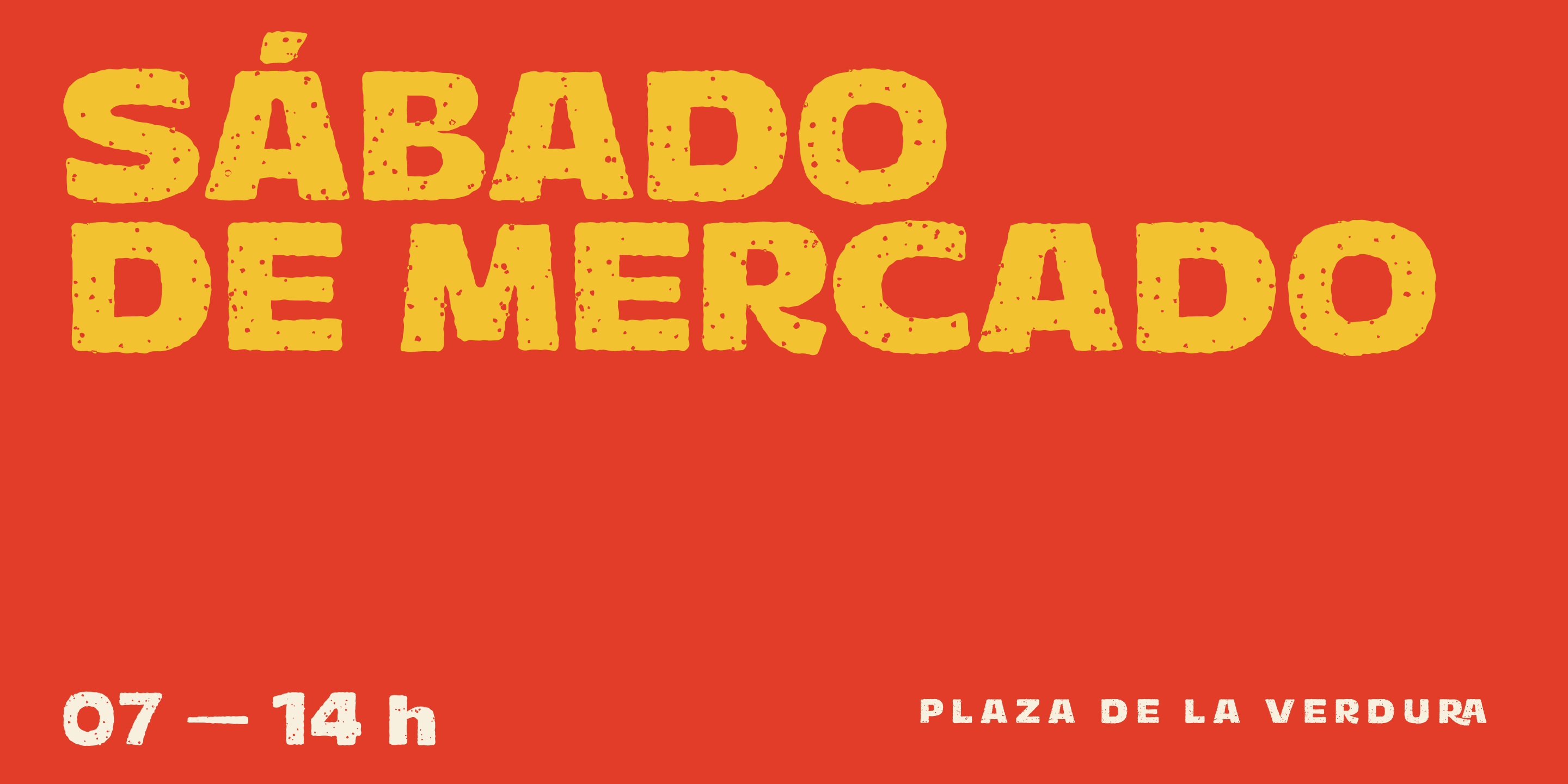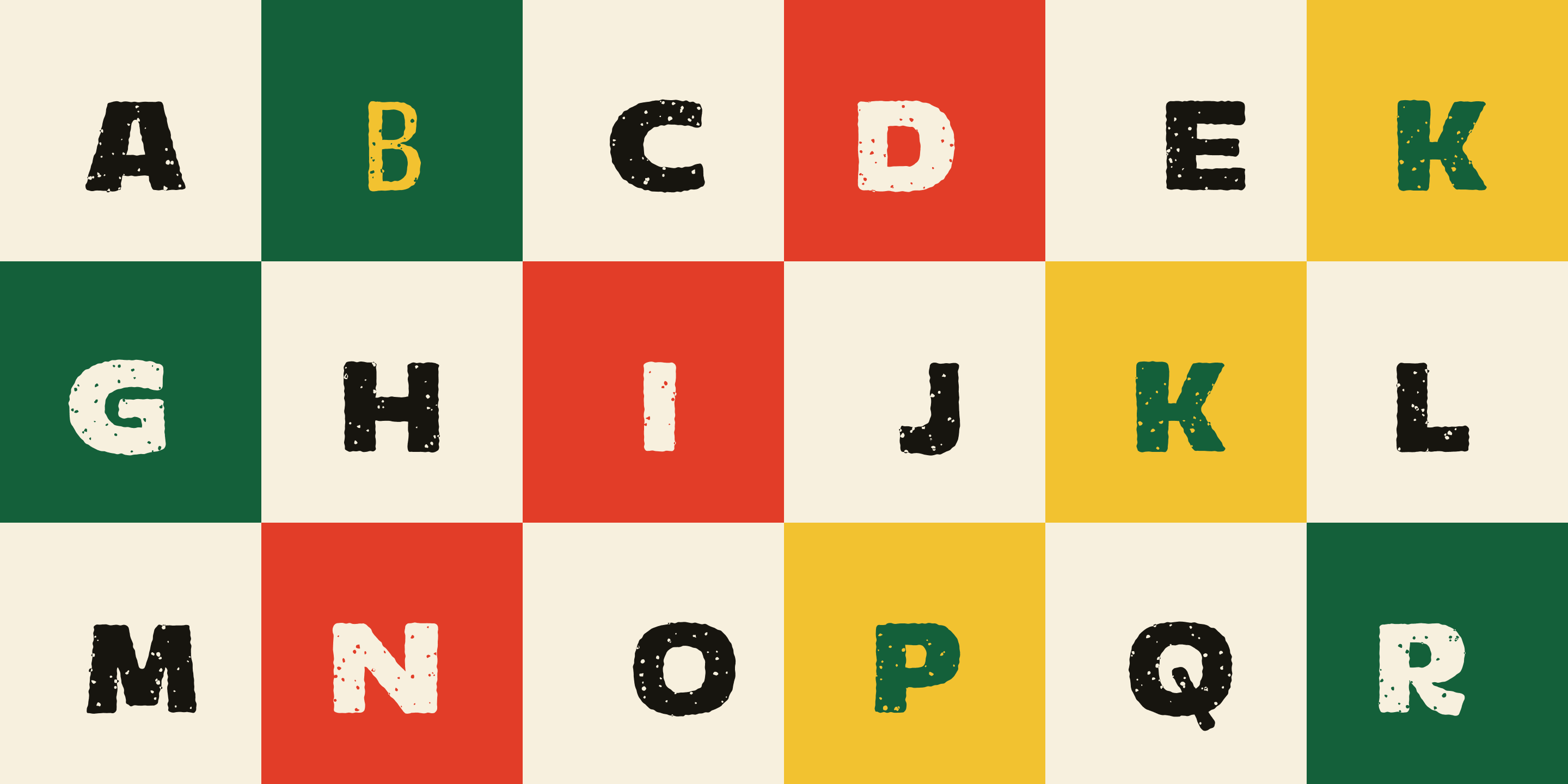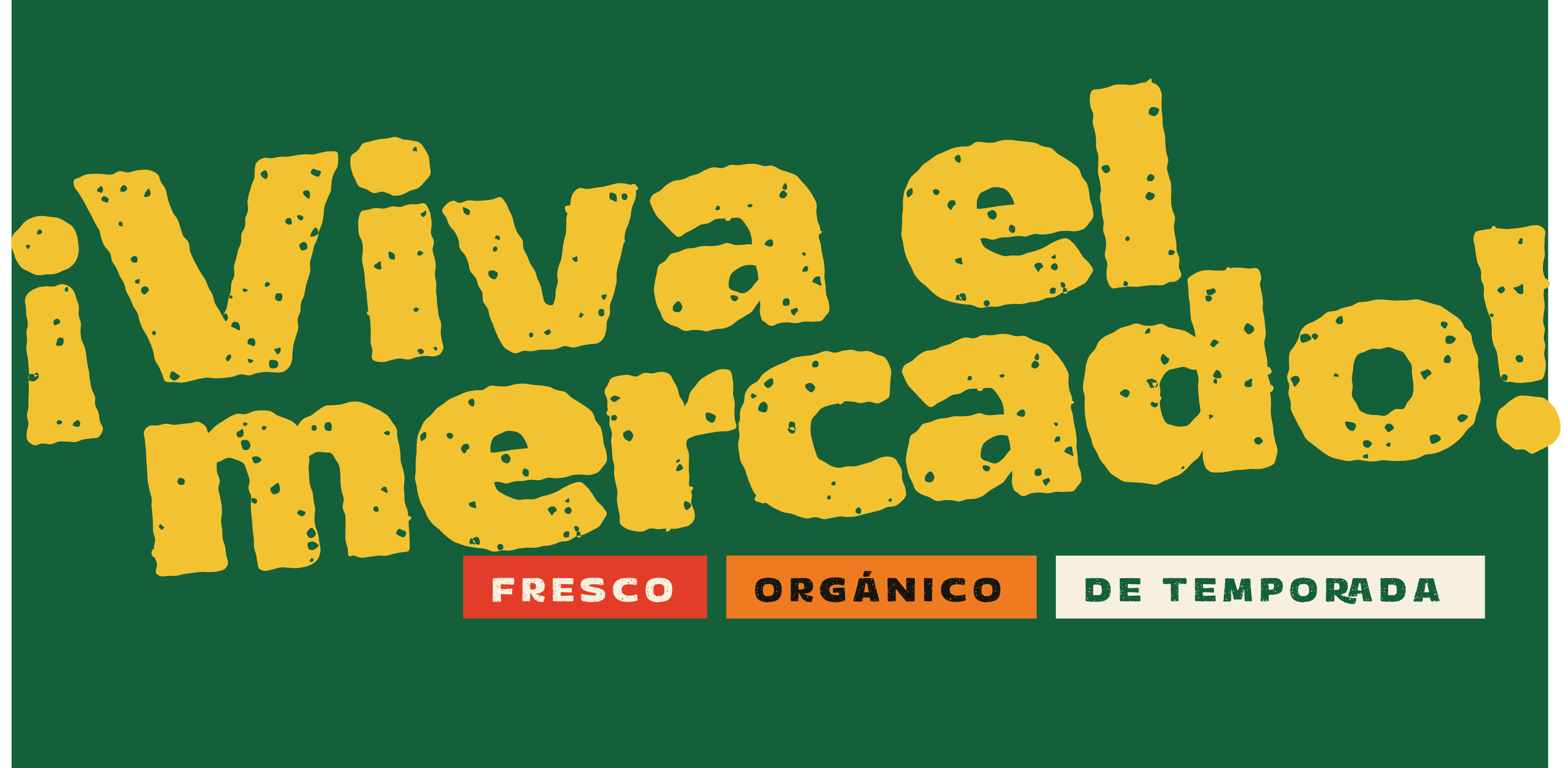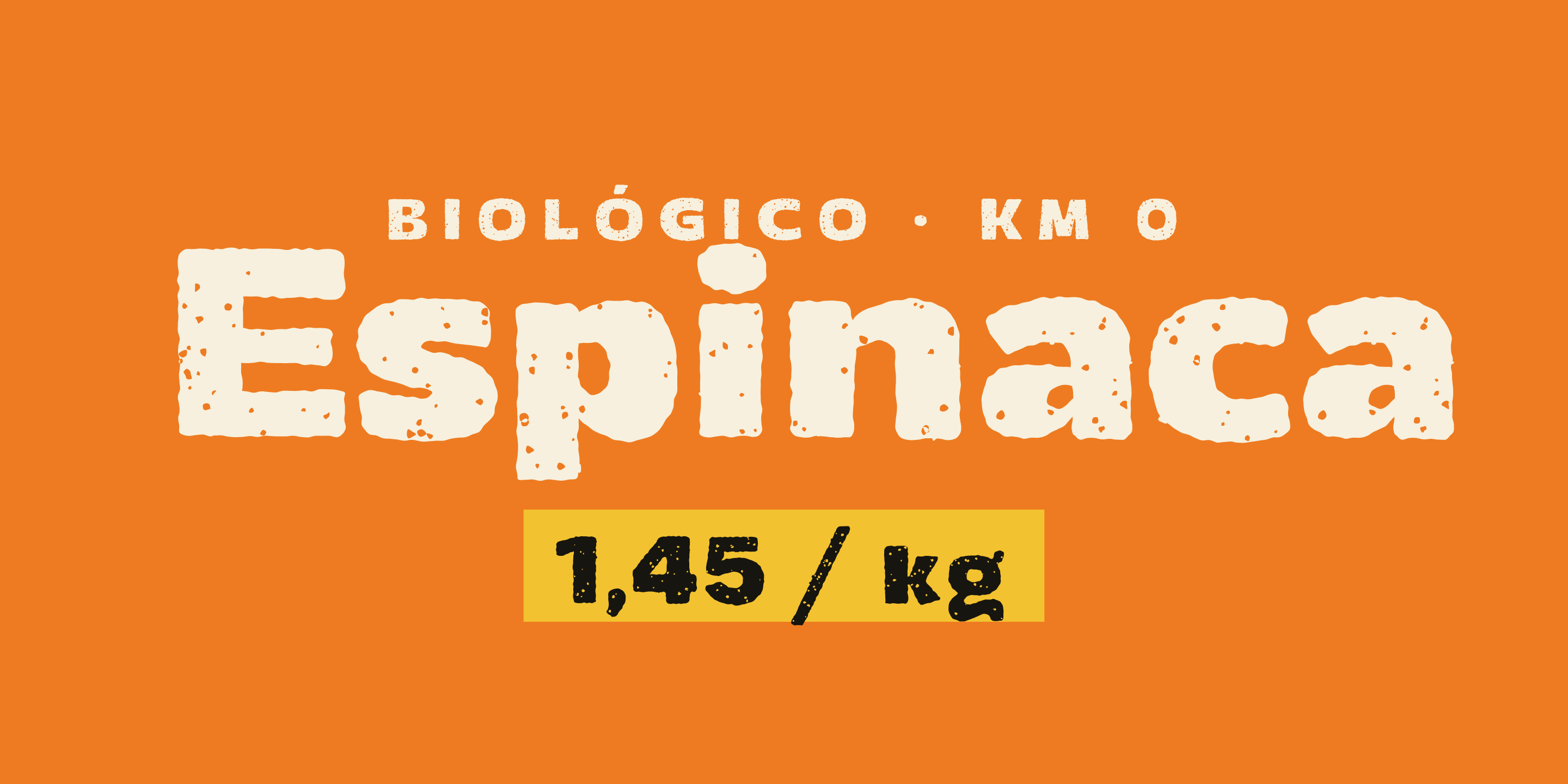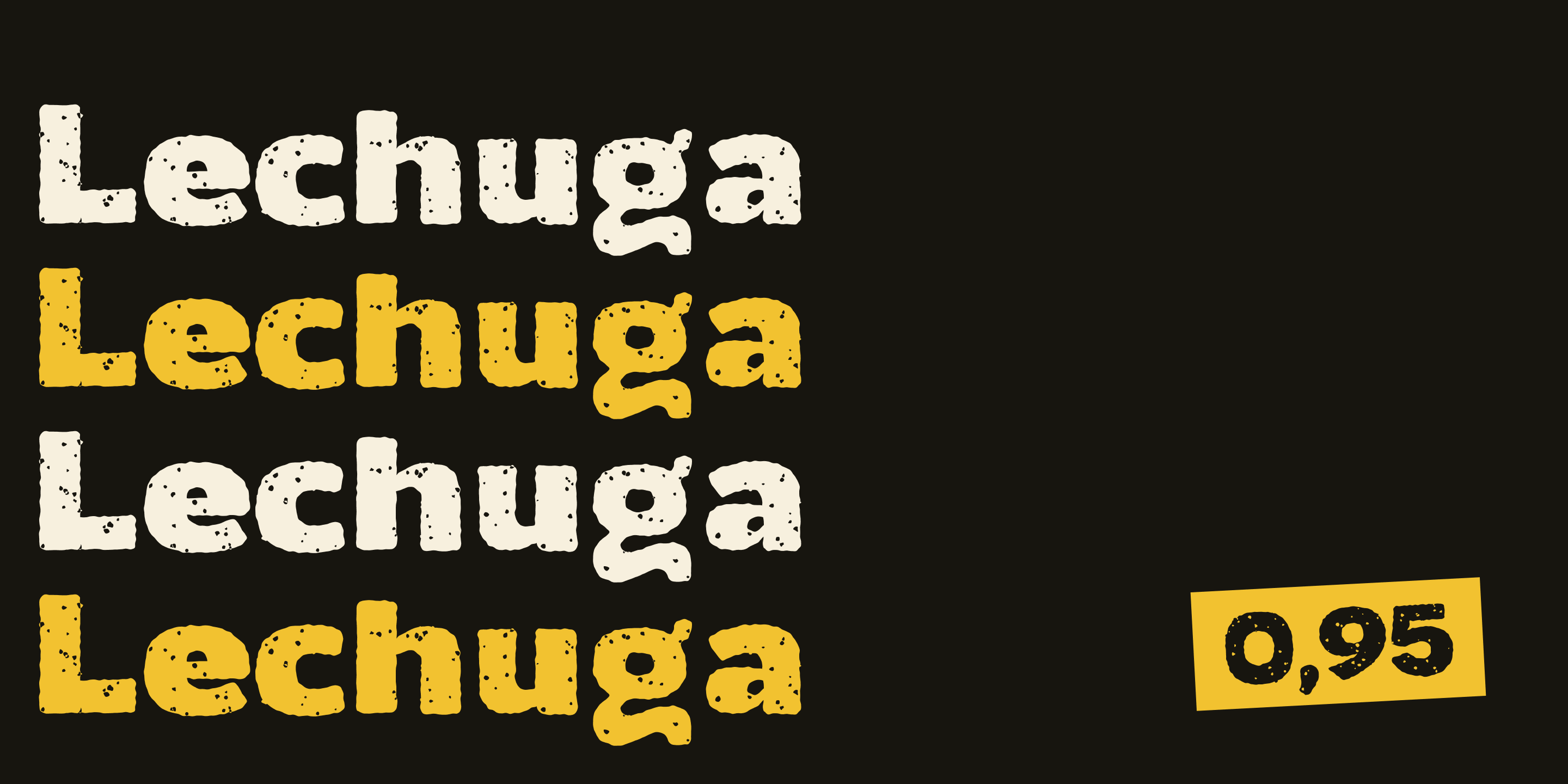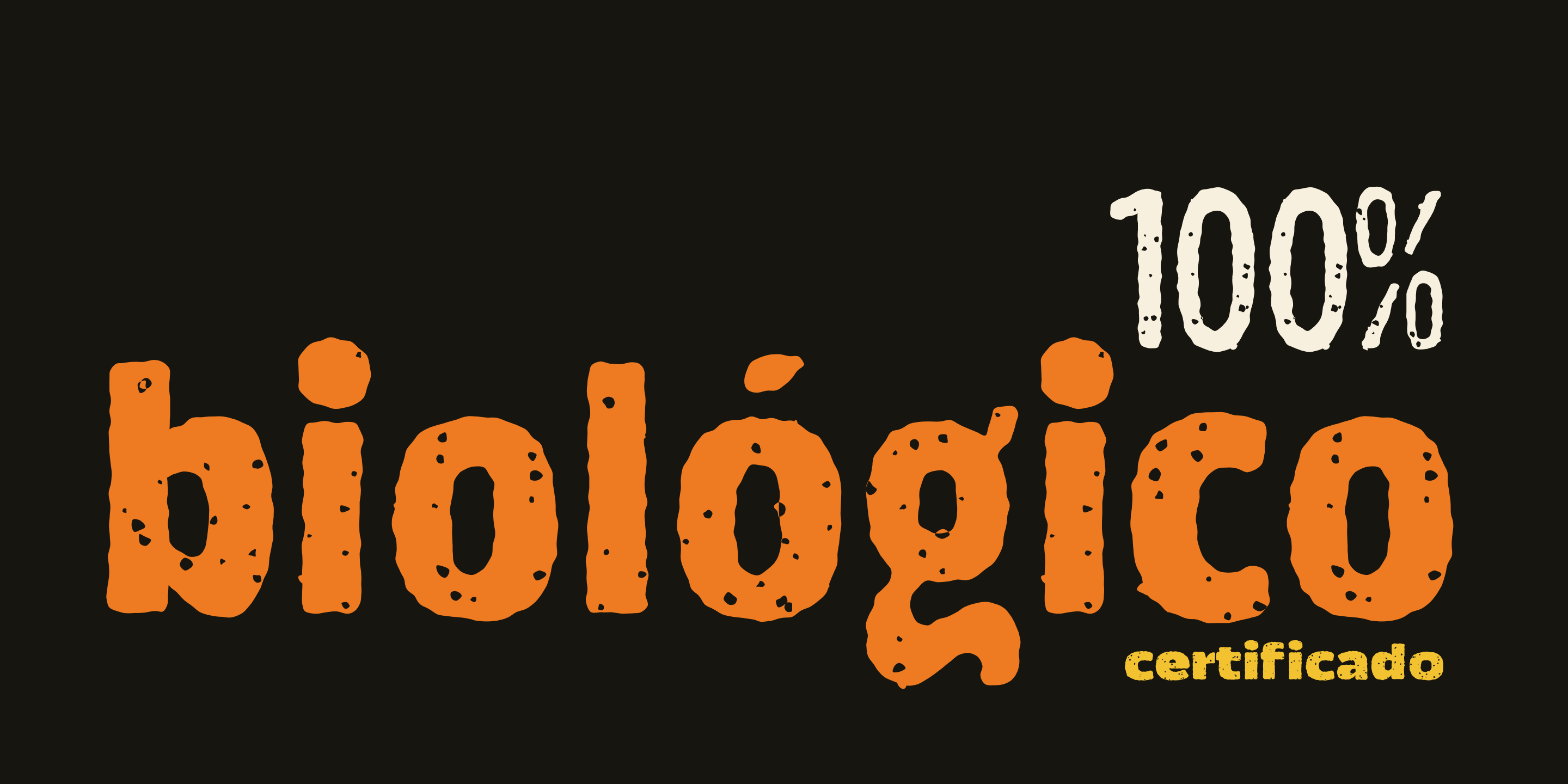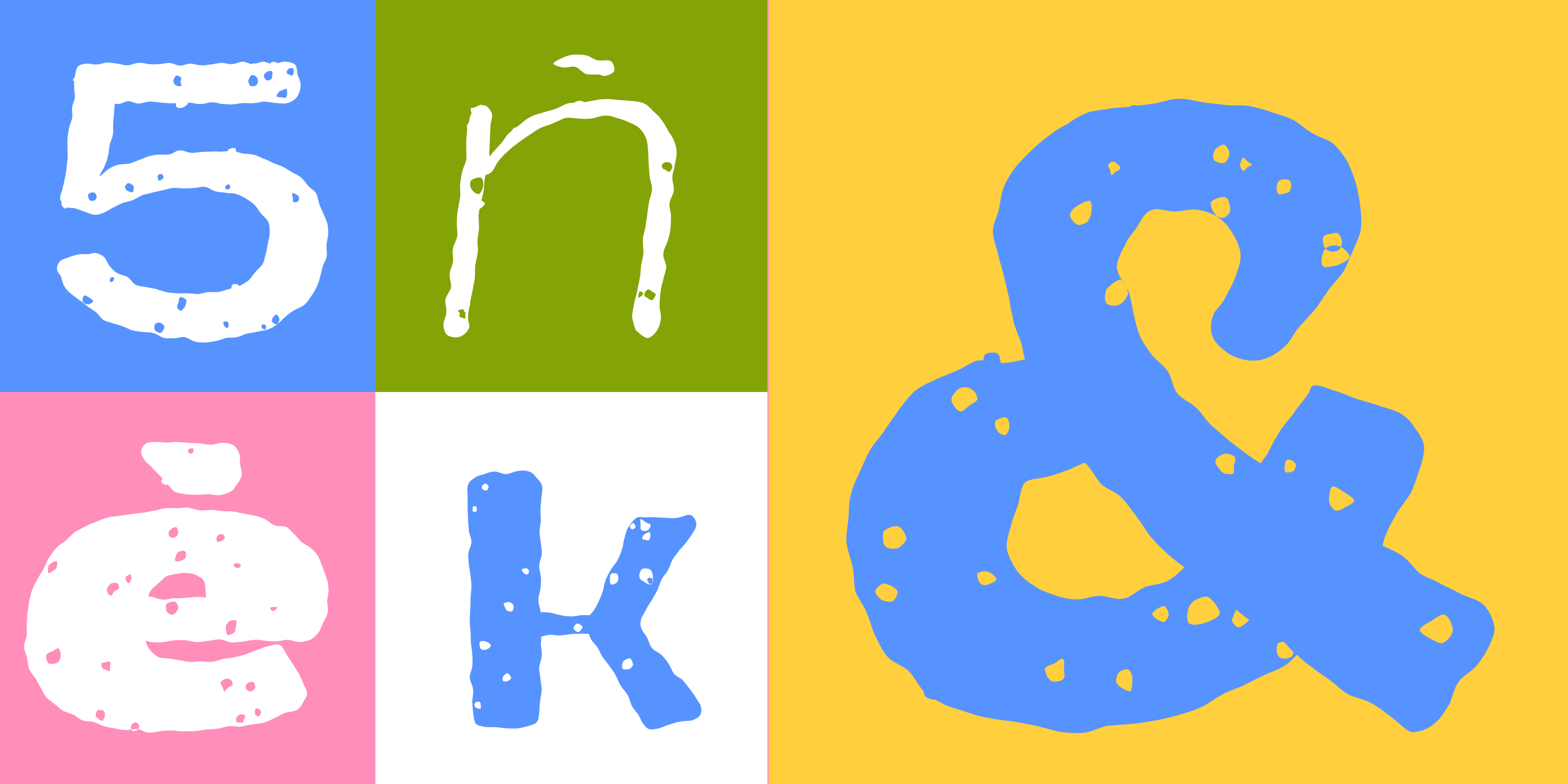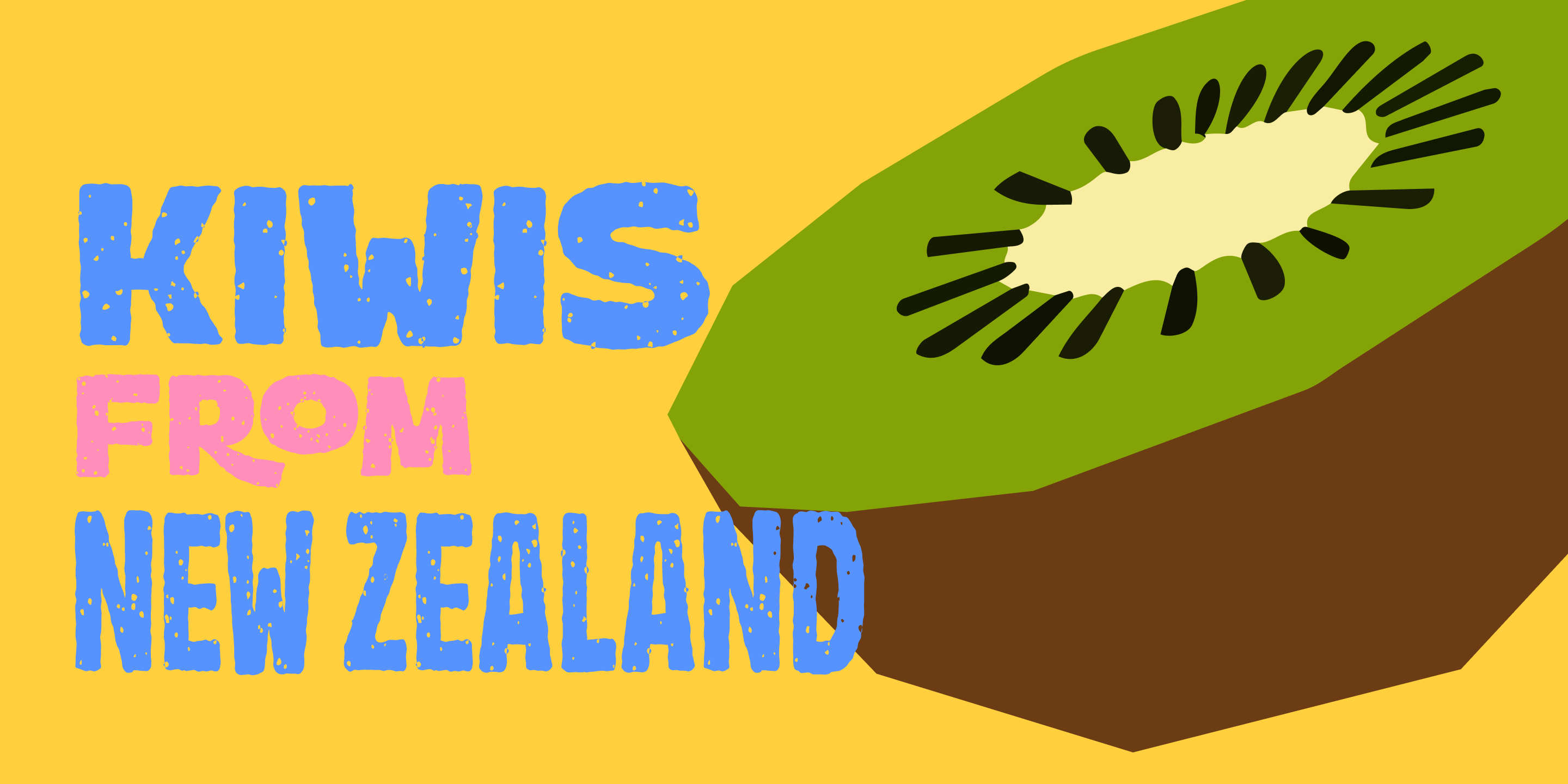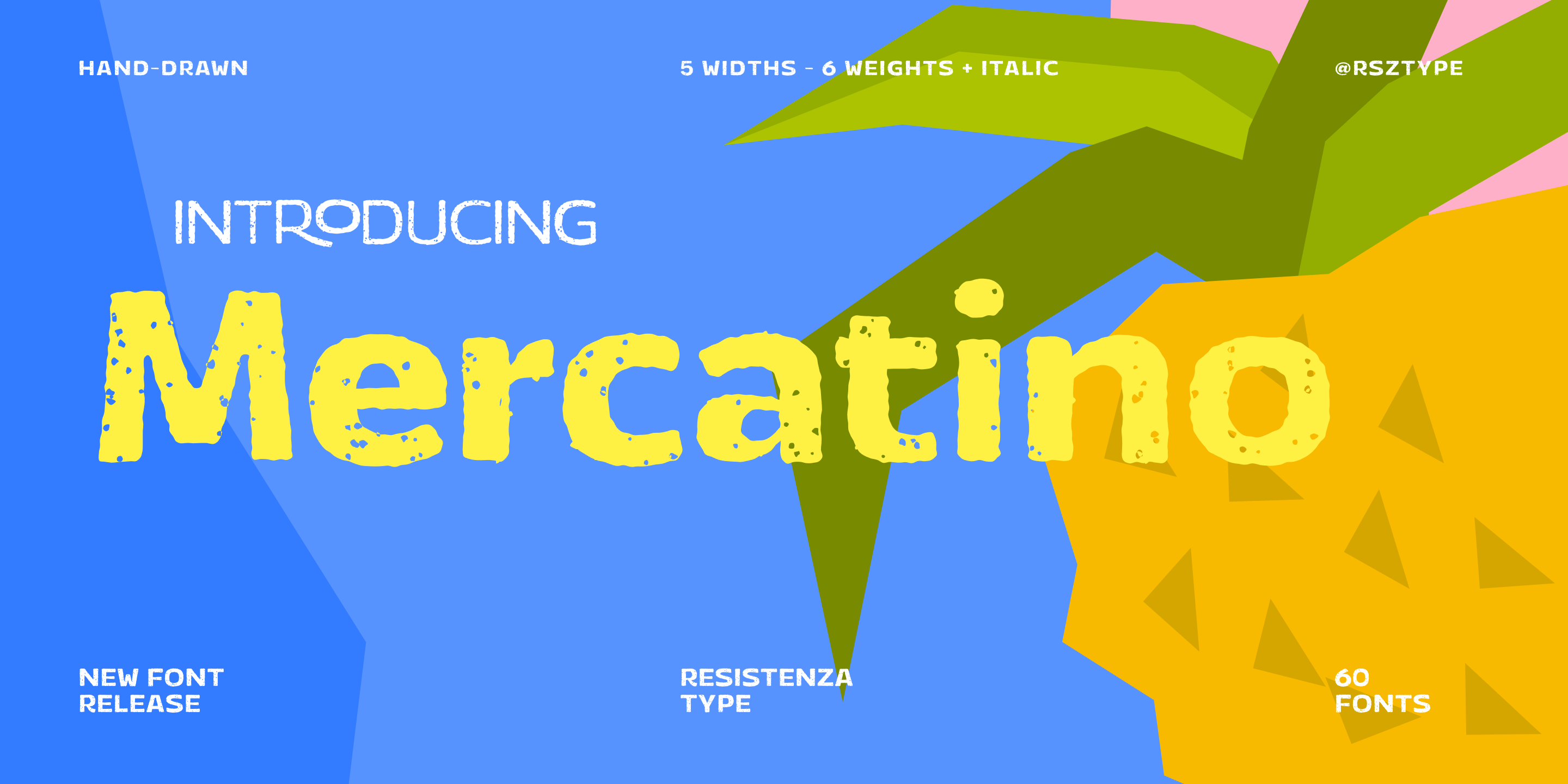
Mercatino
Handmade Sans Serif family
Mercatino
Designed by Resistenza TypeMercatino takes its name from the Italian word for a small street market, and its letterforms come straight off a market stall: loose, textured, and built to be shouted from across the square rather than read up close. The family spans four widths — Squeezed, Regular, Wide, and Expanded — in weights from Thin to Black, set almost entirely in a forward-leaning italic, with a companion upright Squeezed style for steadier settings.
Key features
Fine, grainy stroke texture throughout, closer to chalk or dry brush than a clean vector edge Connecting ligatures (LE, LI, RA, RI, RO, TA, Ti, To) that let letters run into each other like real brushwork A stylistic set (ss01) with looser alternate a and E Case-sensitive forms and ordinals Extended Latin character set for international use
Available styles Squeezed Regular (upright), plus italic weights Thin through Black across Regular, Wide, and Expanded widths.
Best uses Market and food branding, packaging, editorial headlines, and posters — playful enough to carry a logo, structured enough to set a whole layout.ort.